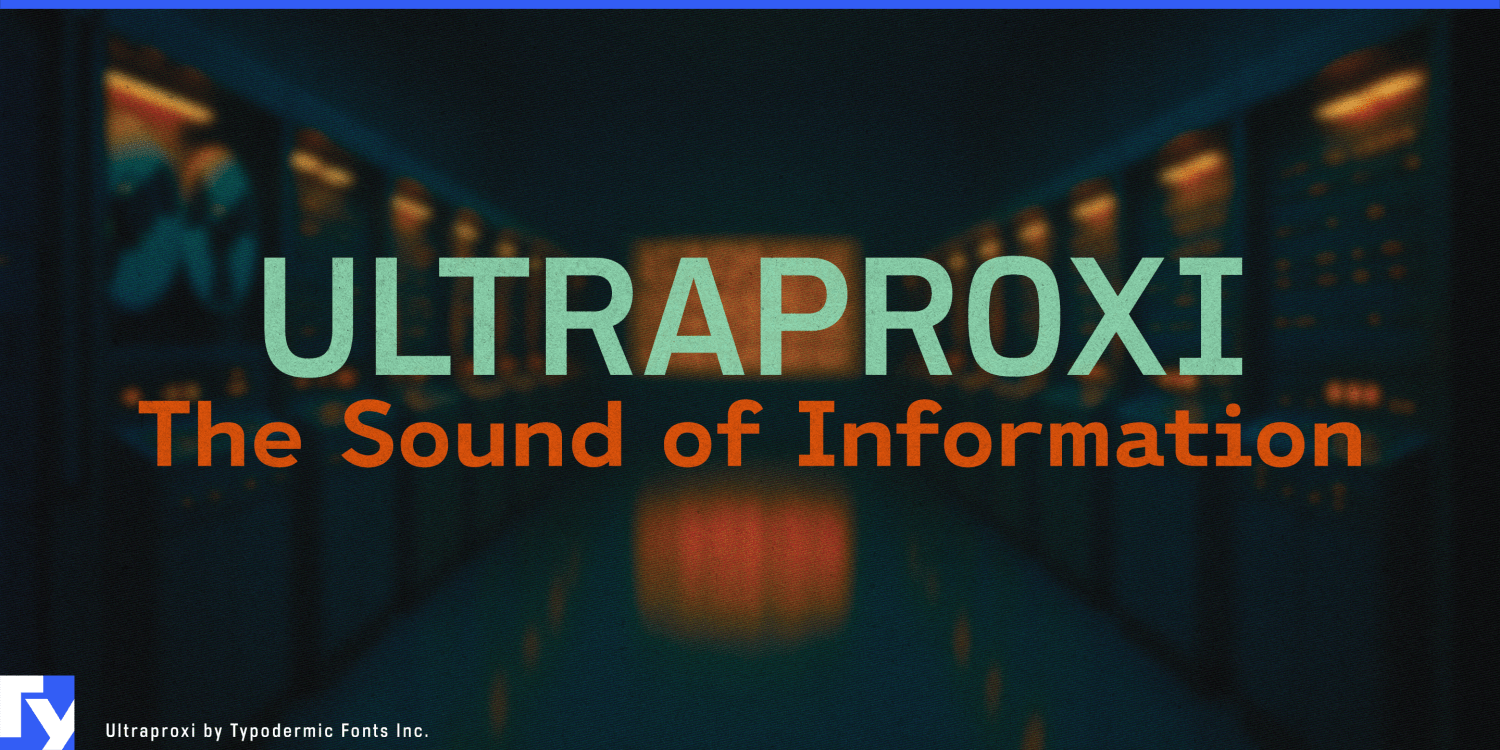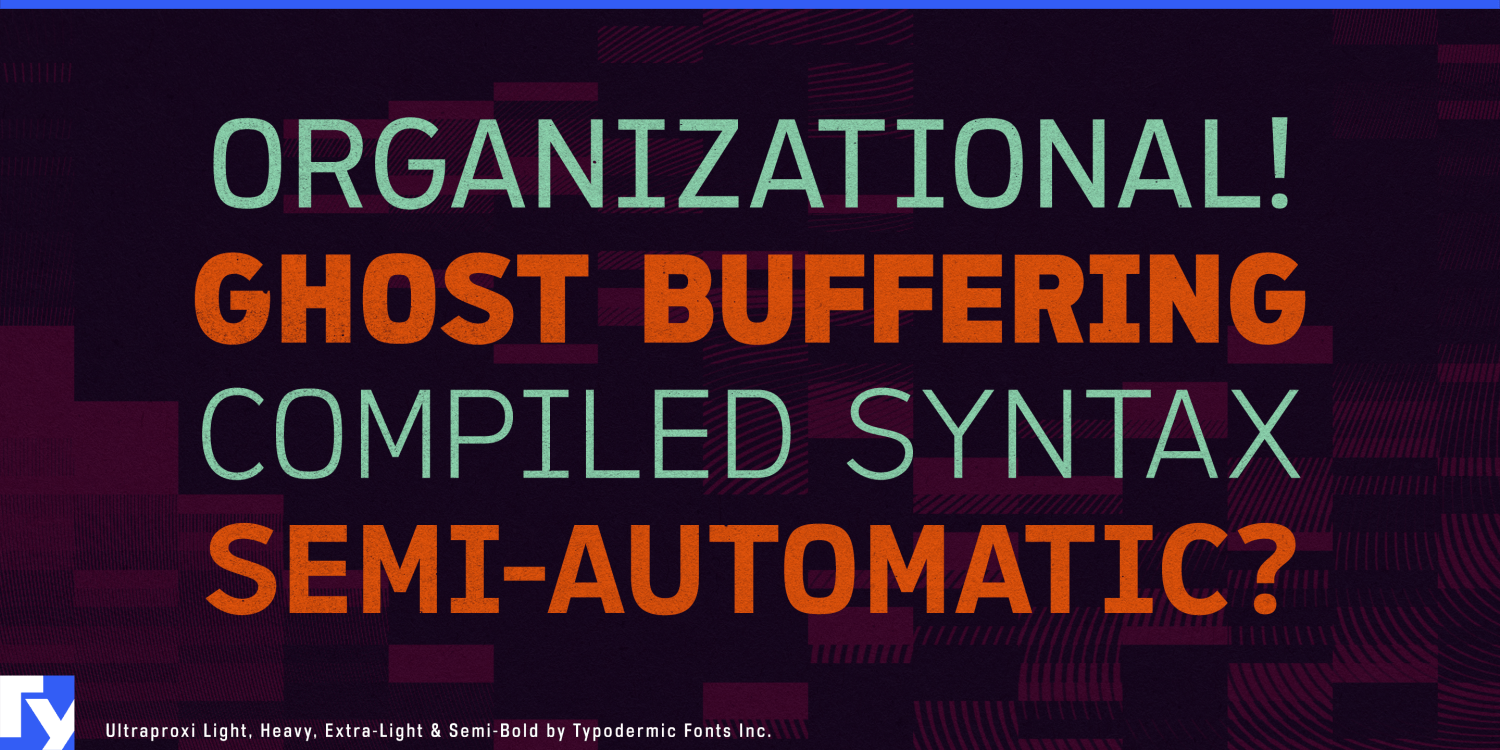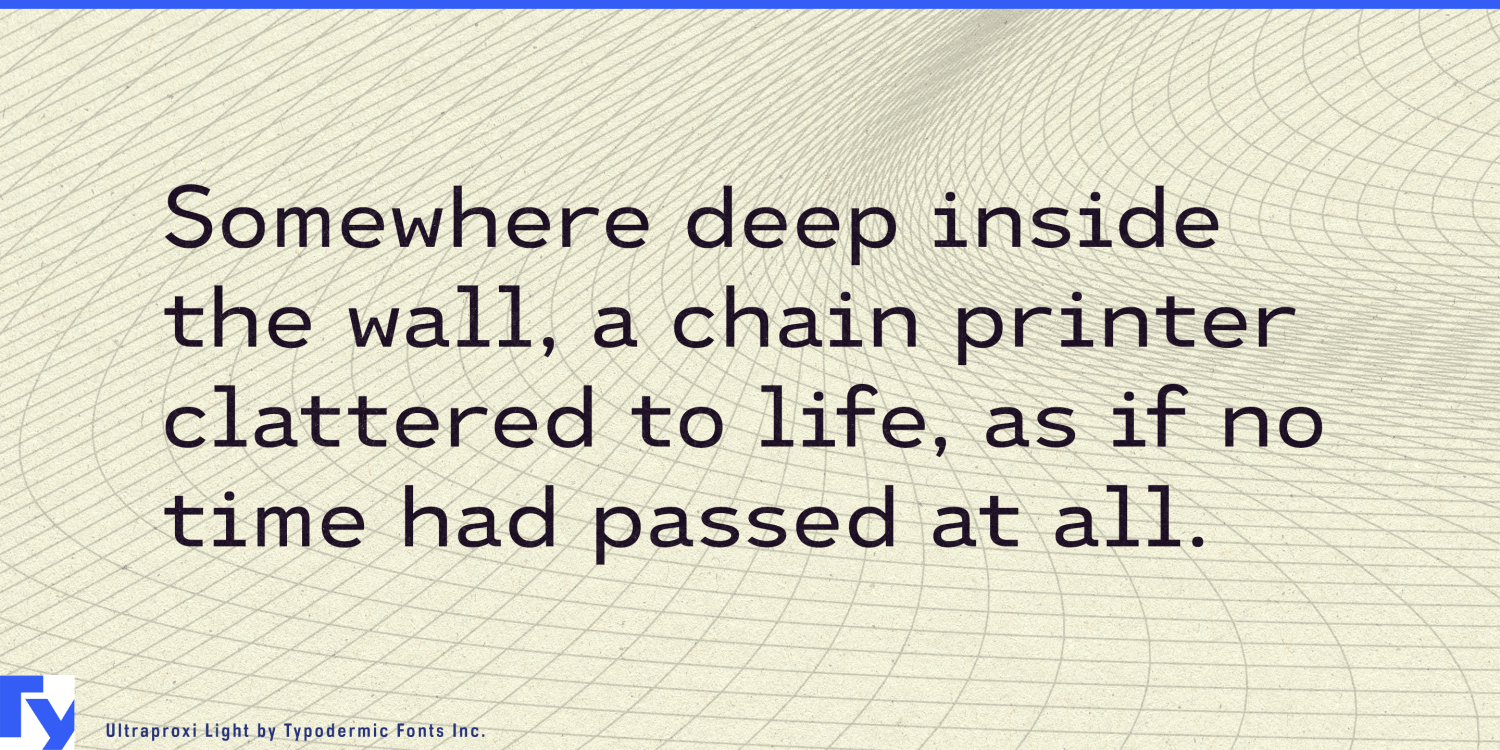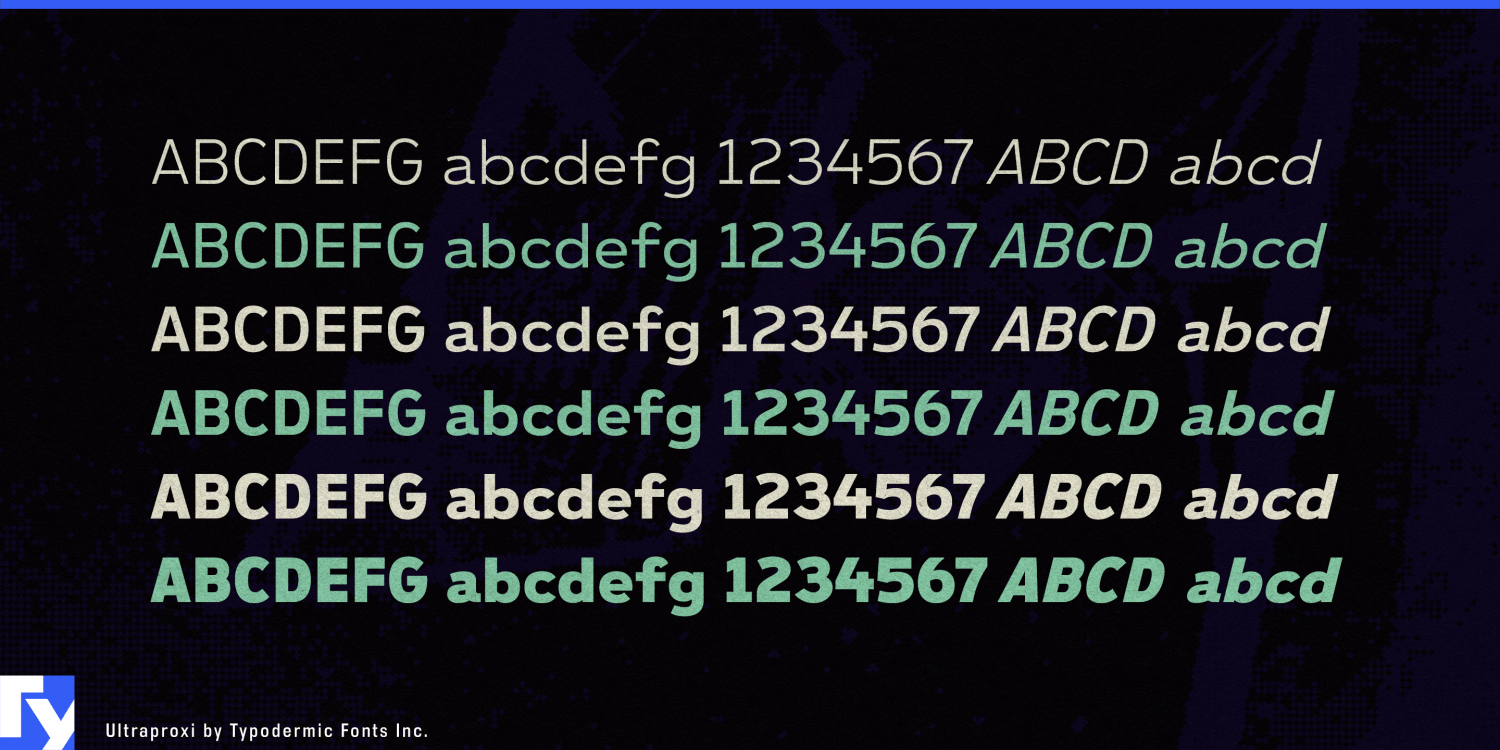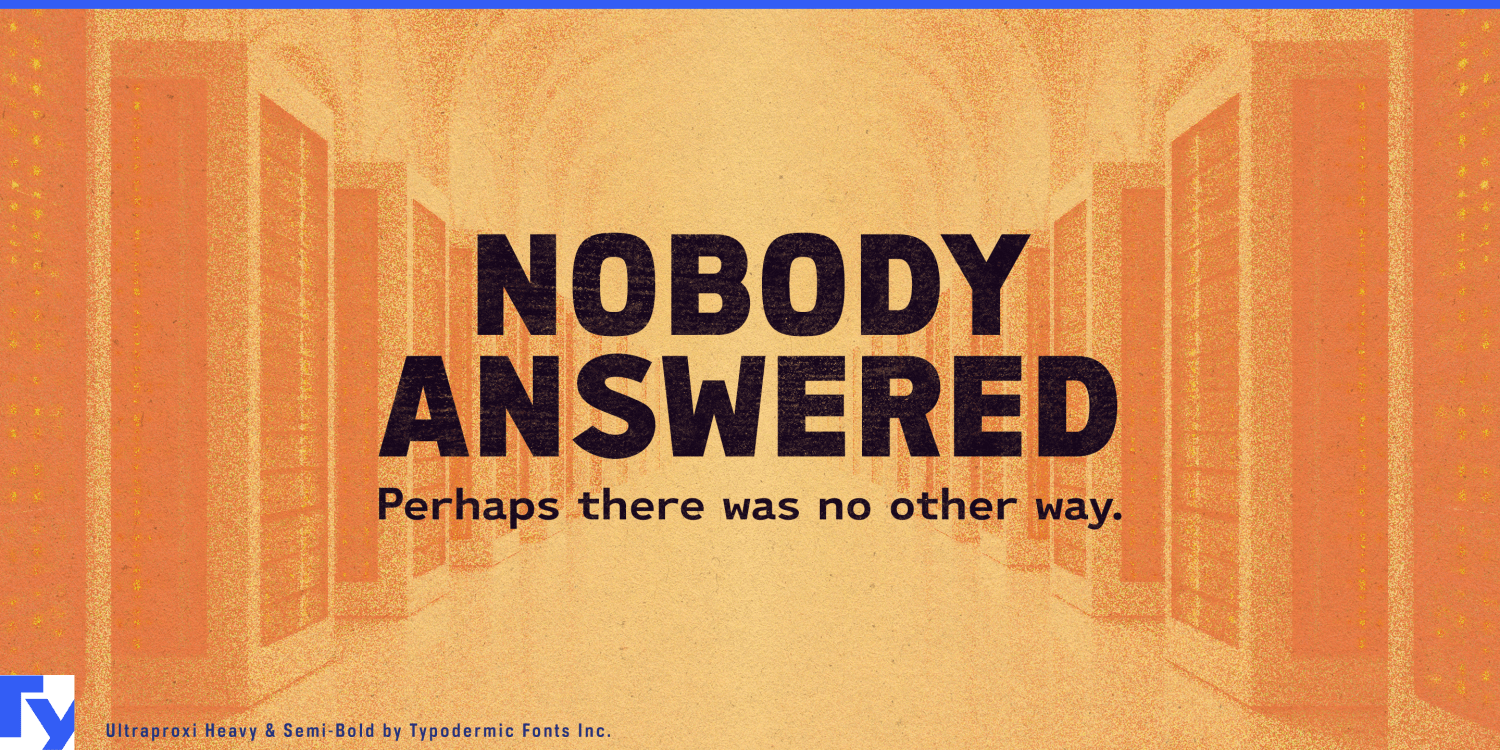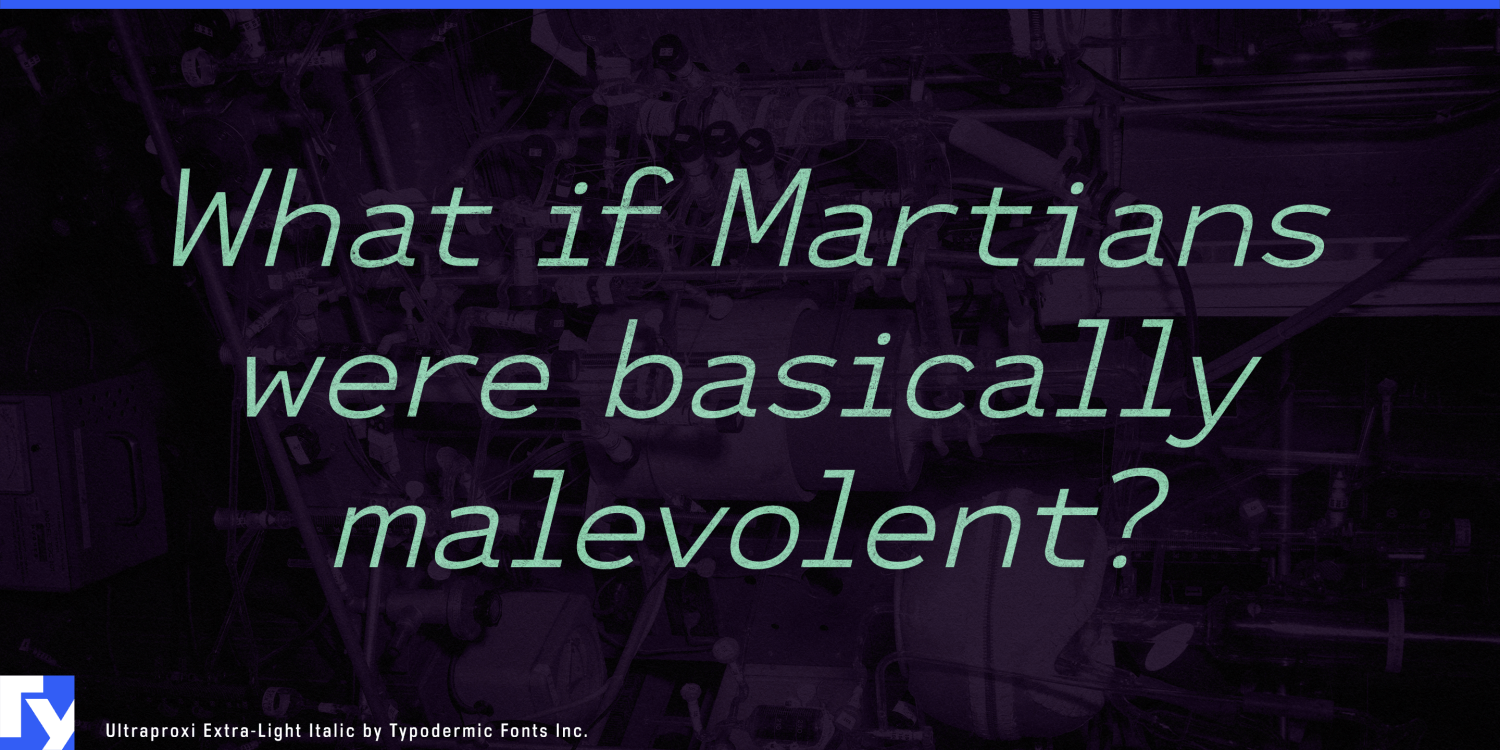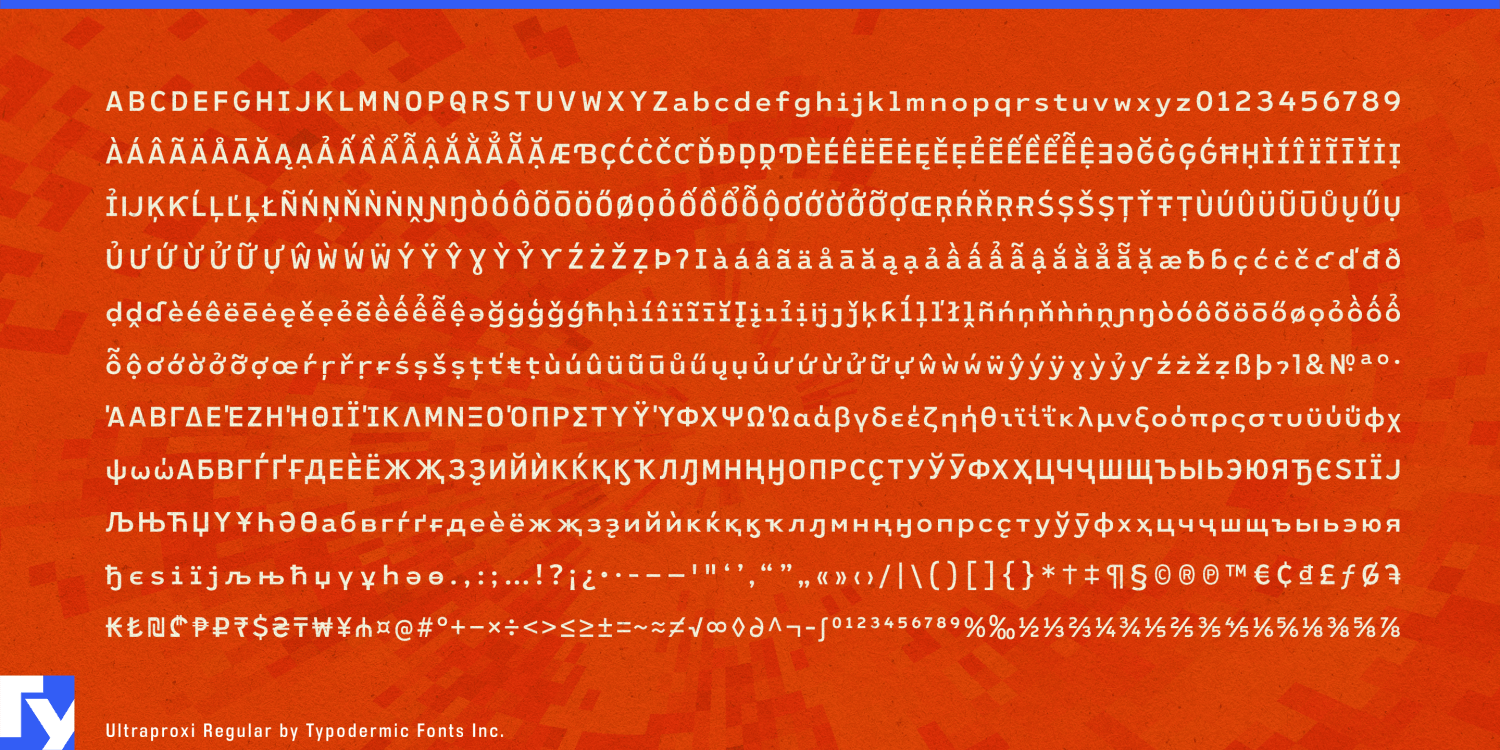
Ultraproxi
Font Family by Typodermic
Monospaced typography says “computing” immediately, but equal-width characters are often a poor fit for the words surrounding the code. Product names get loose, headlines develop awkward gaps, and ordinary sentences inherit spacing designed for alignment rather than reading. Ultraproxi keeps the engineered rhythm and machine-made character of monospaced type while using proportional spacing, preserving that technical language without forcing every message onto a character grid.
That distinction is especially useful for developer infrastructure. Database platforms, API companies, cloud services, container tools and developer platforms publish far more than source code: documentation covers, product-family names, launch graphics, conference signage, case studies and technical reports all need ordinary language to look at home beside the software. Ultraproxi can handle those surrounding layers while a true monospaced companion remains available wherever code and character alignment actually matter.
AI infrastructure creates a similar problem. GPU-cloud providers, inference platforms, accelerator hardware companies, data-center networking firms and cooling-system manufacturers need typography that belongs to serious computing without resorting to generic futuristic lettering. Ultraproxi can carry accelerator model names, benchmark-report headings, infrastructure diagrams, conference graphics and product sheets with the visual logic of machine output but the tighter fit of proportional type.
Its computing lineage also makes Ultraproxi useful for mainframe modernization. Banks, insurers, airlines and enterprise technology firms still have to explain migrations from long-lived systems into contemporary cloud and integration platforms. Ultraproxi can connect those eras in modernization reports, architecture diagrams, conference sessions and migration campaigns without turning the subject into retro-computing theatre.
Observability, telemetry and network operations provide another natural setting. These systems are surrounded by machine-generated information, yet much of their communication consists of headings, labels and explanations rather than aligned data. Ultraproxi can occupy that explanatory layer while a true mono handles the logs themselves.
The lighter weights also give Ultraproxi room in technical publishing for semiconductor companies, robotics firms, engineering consultancies and research organizations. Technology reports, conference programs and architecture documents can retain the cadence of machine-generated type while gaining the spacing expected from proportional typography.